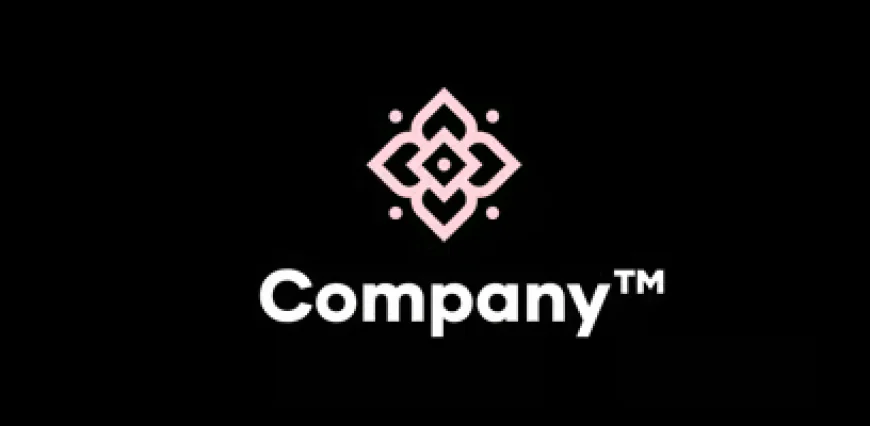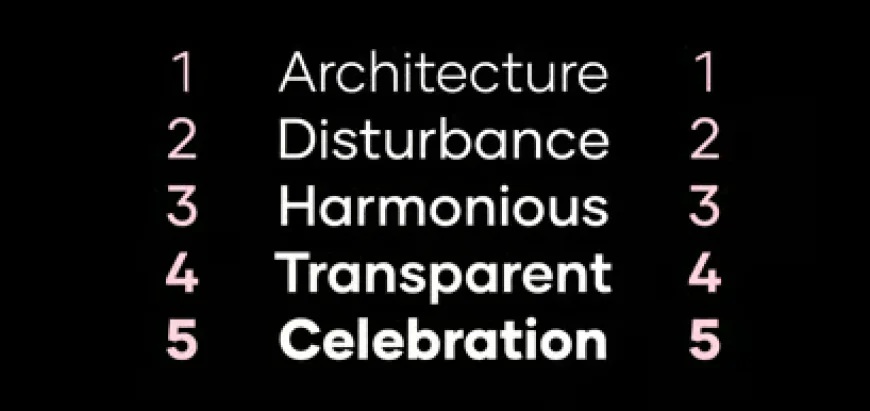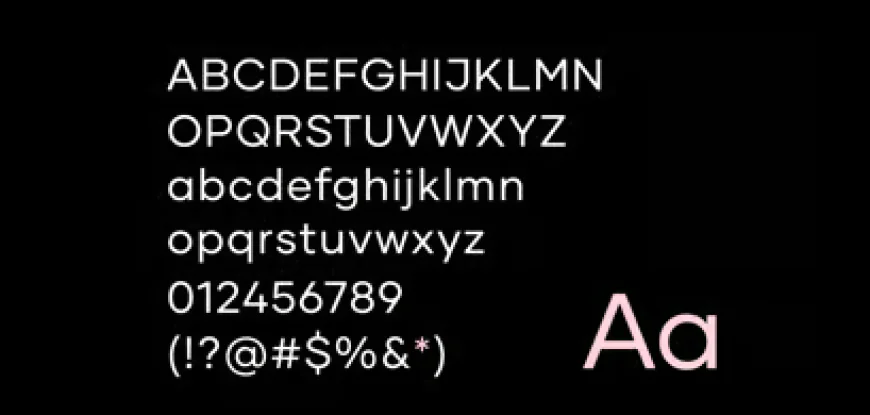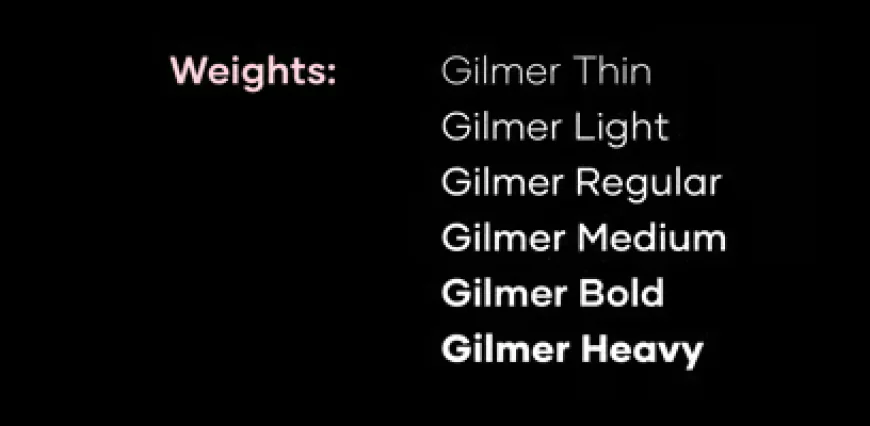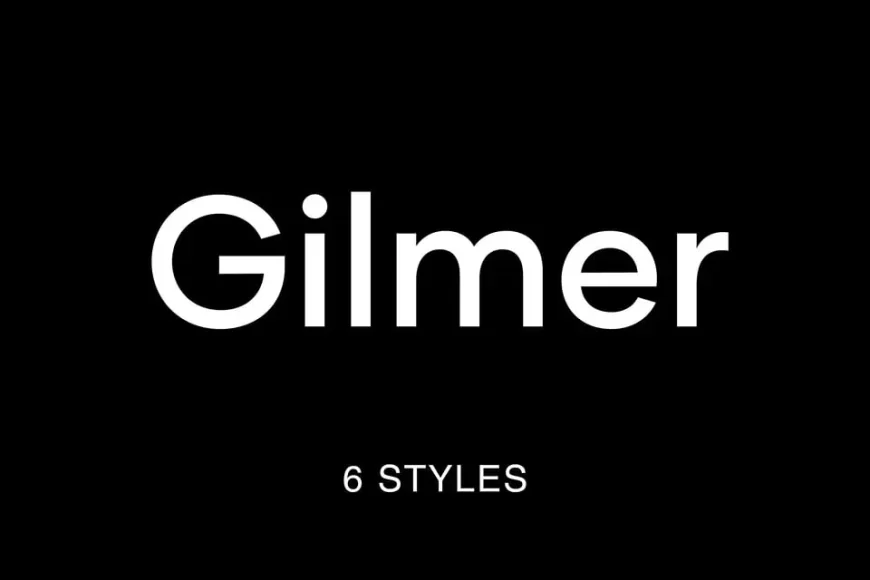
Gilmer is a fresh and geometric sans-serif typeface inspired by iconic fonts like Futura and Avant Garde. It features a high x-height, sharp edges, geometric letterforms, and minimal stroke contrast, similar to neo-grotesque typefaces of the 20th century.
Gilmer - A Modern Geometric Sans-Serif Font
Gilmer is a fresh and geometric sans-serif typeface inspired by iconic fonts like Futura and Avant Garde. It features a high x-height, sharp edges, geometric letterforms, and minimal stroke contrast, similar to neo-grotesque typefaces of the 20th century.
This versatile font is perfect for use in magazines, posters, branding, websites, and more.